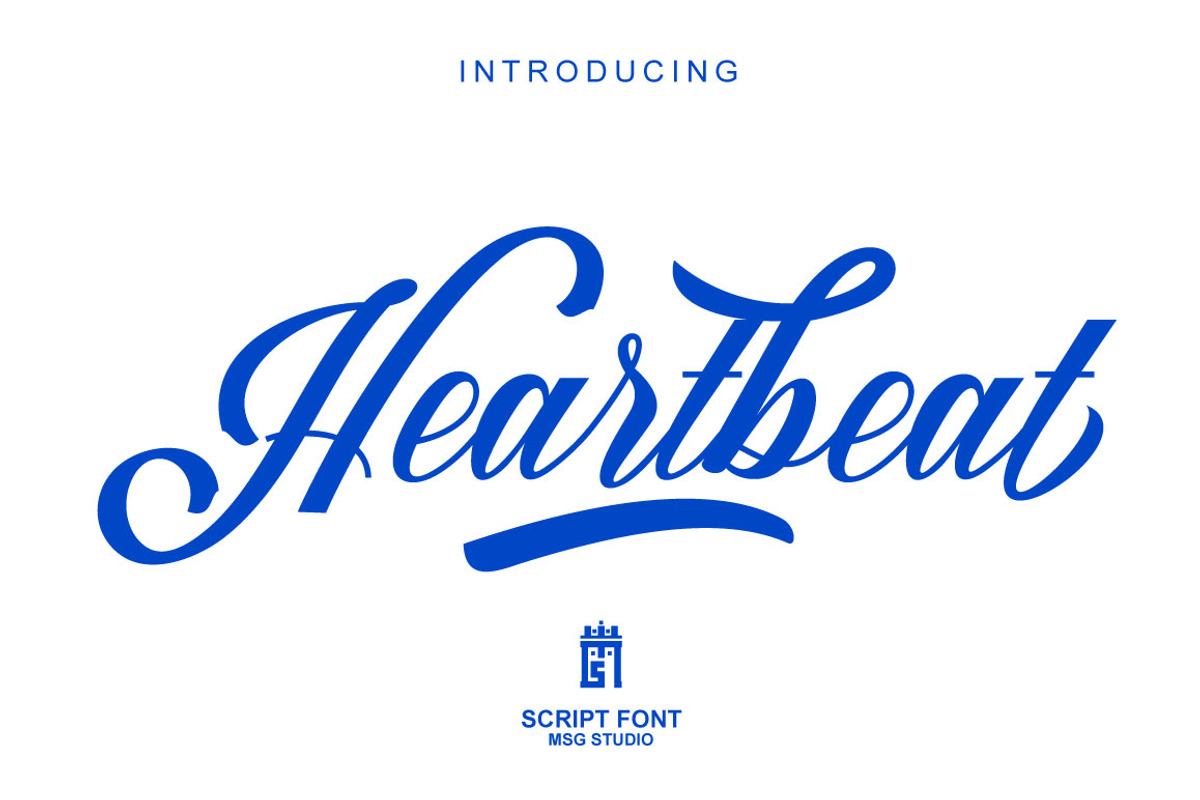
Heartbeat Font Free Download is a sweet and elegant script typeface that captures the rhythm of love and emotion. With its flowing curves and handwritten style, this font is perfect for wedding invitations, romantic quotes, branding, greeting cards, and any design that needs a heartfelt touch.
Crafted with soft strokes and graceful letterforms, Heartbeat Font Free Download delivers an intimate, personal feel—like a note written by hand, straight from the heart. It works beautifully in both print and digital formats, especially when used for names, signatures, or expressive headlines.
Whether you're designing for Valentine’s Day, anniversaries, or love-filled campaigns, this font adds warmth, charm, and a dash of elegance. Pair it with minimalist elements or delicate illustrations to let its romantic nature shine through.
Let your designs skip a beat with Heartbeat—because some words deserve to be written with feeling.